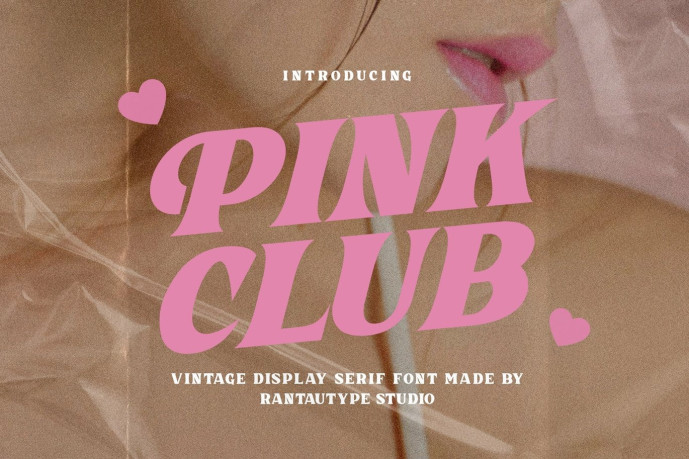
Pink Club Font
Designer: RantautypeStudio
Pink Club Font is a vintage typeface created by the studio rantautype. Pink Club is a perfect choice for any creative endeavor, from creating modern lifestyle designs such as logos, headlines, covers, branding, invitations, wedding motifs, displays and magazines, social media posts, advertisements, printed quotes, product packaging, corporate branding, product designs, labels, photography, watermarks, special events, and any other project.